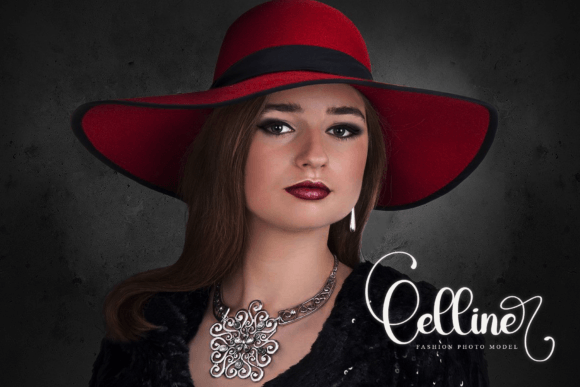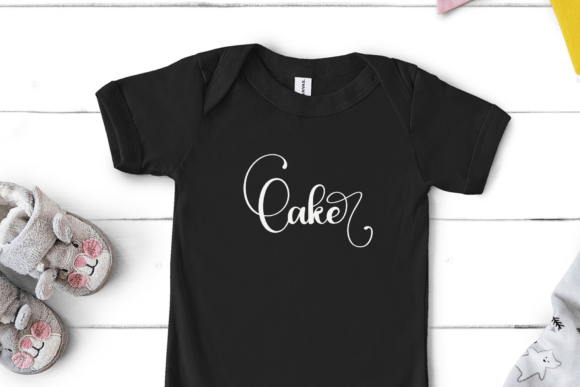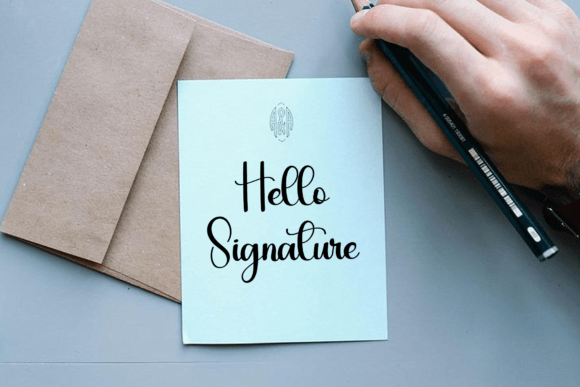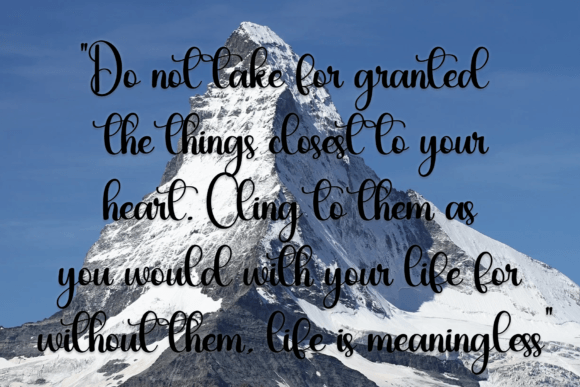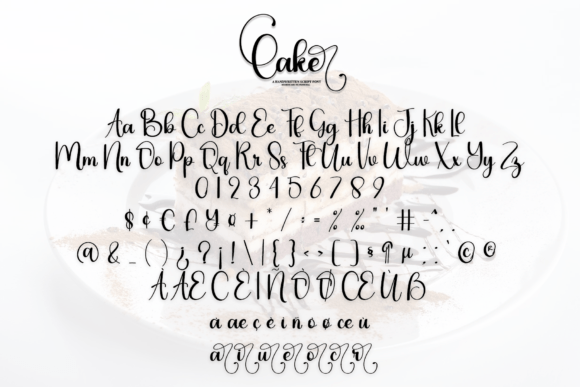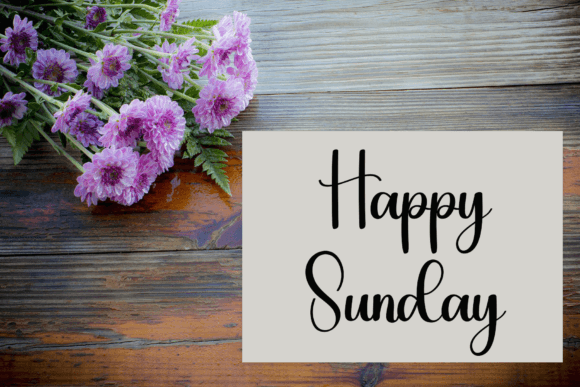
The Sweet Charm of Cake Font: A Designer’s Delight
I’ll never forget the time I was working on a wedding invitation project, and my client asked for a font that was both elegant and playful. I scoured the internet, trying out font after font, but nothing seemed quite right. That was until I stumbled upon Cake Font. This sweet and cursive handwritten font has been a game-changer for me, and I’m excited to share its charm with you! 🎉
So, what makes Cake Font so special? Let’s dive into the good stuff! 😊
- ✨ Sweet and feminine: Cake Font has a gentle, cursive feel that’s perfect for adding a touch of romance to your designs.
- ✅ Highly versatile: This font looks stunning on a variety of design ideas, from branding and logos to wedding materials and greeting cards.
- 💕 Emotional connection: The flowing script and delicate lines of Cake Font evoke a sense of joy and whimsy, making it perfect for designs that need a personal touch.
Of course, no font is perfect, and Cake Font has a few minor quirks to consider:
- 🤔 Limited use in body text: While Cake Font is gorgeous as a display font, it may not be the best choice for longer blocks of text.
- ⚠️ Some letter combinations: As with any script font, some letter combinations may not flow as smoothly as others.
The Story Behind Cake Font
Cake Font was designed with love and care by a talented font creator who wanted to craft a font that would bring joy and sweetness to designs. The font’s gentle curves and flowing lines are inspired by traditional handwritten scripts, with a modern twist.
| Q: What type of designs is Cake Font best suited for? | A: Cake Font is perfect for branding, logos, wedding materials, greeting cards, fashion, and marketing promotions. |